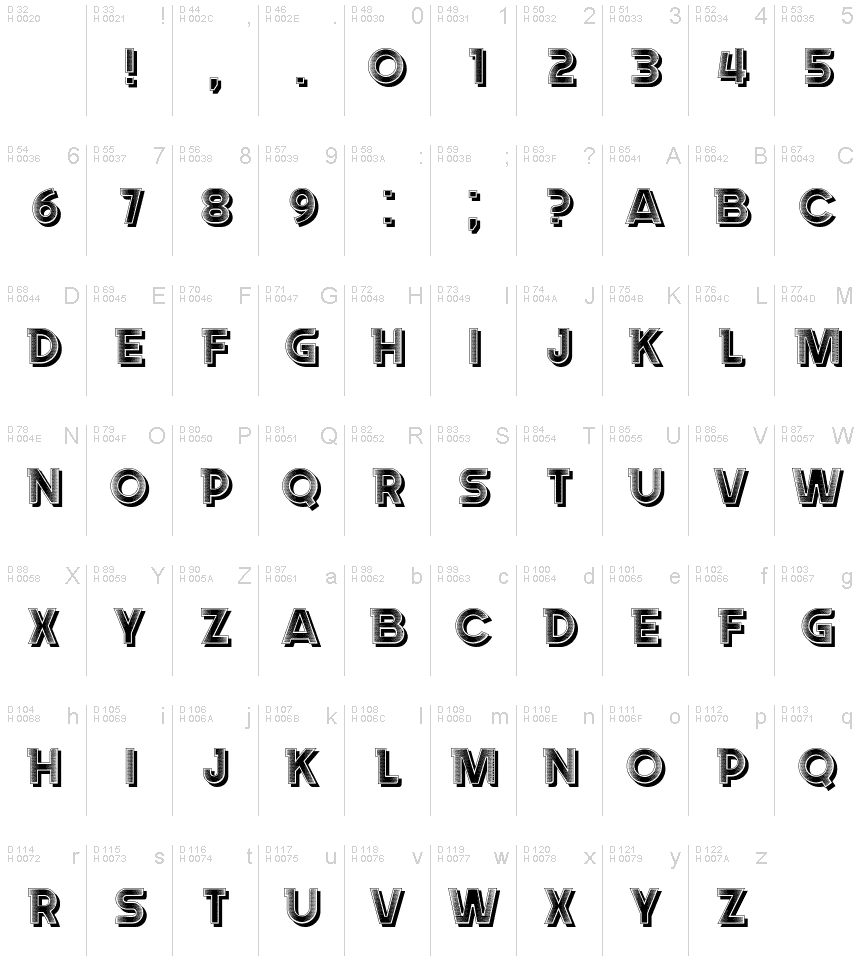
Arzona Shadow Inverted Regular
Arizona Shadow Inverted font is a lovely retro typeface designed by Vladimir Nikolic.
"Arizona" comes in Regular and Shadow Inverted variant!